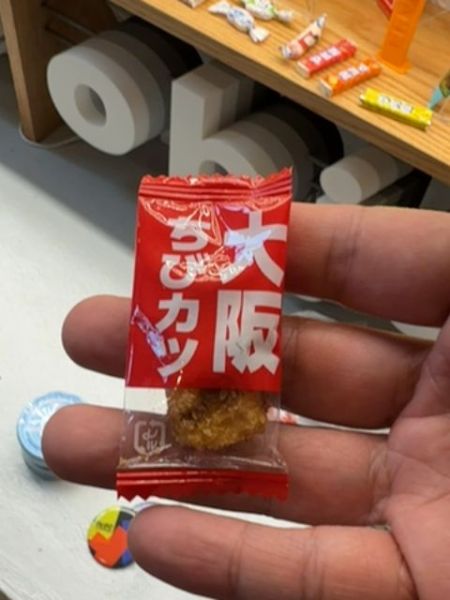
Osaka Chibi Katsu
A small, fried snack resembling a cutlet, popular for its savory taste.
The typography features bold, sans-serif characters in white against a red background, providing high contrast and legibility. The font choice communicates a modern and straightforward appeal, aligning with the bold aesthetic typical of snack packaging.
The packaging is a small, clear plastic wrapper with bold red accents, making it visually striking. The clear portion reveals the product inside, while the red area carries bold white text, ensuring high visibility.
- Popular Japanese snack.
- Compact size makes it ideal for on-the-go snacking.
- Often enjoyed as a savory treat.